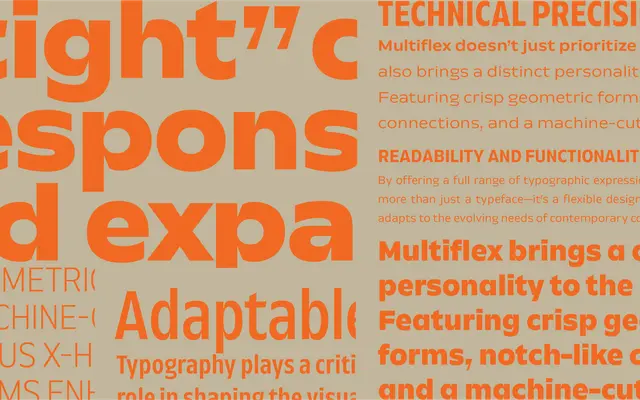
Multiflex
Leinster Type · Troy Leinster · 2025
Multiflex specimen from Leinster Type
A geometric sans with humanist softening across four widths and nine weights, designed to cover everything from caption text to display headlines within a single family.
Thirty-six styles span four widths, from Compact to Wide, and nine weights from Thin to Black, with variable font support throughout. Notch-like connections at joins and a generous x-height pull the geometry back from rigidity, keeping the face readable at small sizes without losing its machine-cut quality. Stylistic alternates include single- and double-storey options for 'a' and 'g', adding some flexibility for branding contexts.
Described by the foundry as geometric at its core but humanist in flavour, with notch-like connections and open forms that soften the underlying geometric structure. This places it squarely in the geometric humanist sans category.